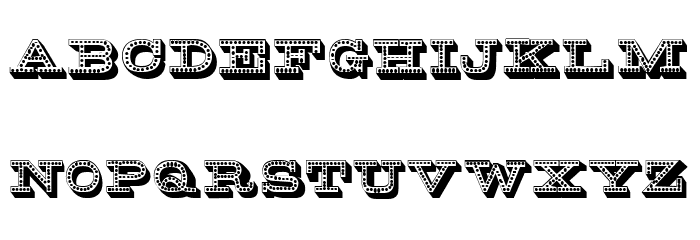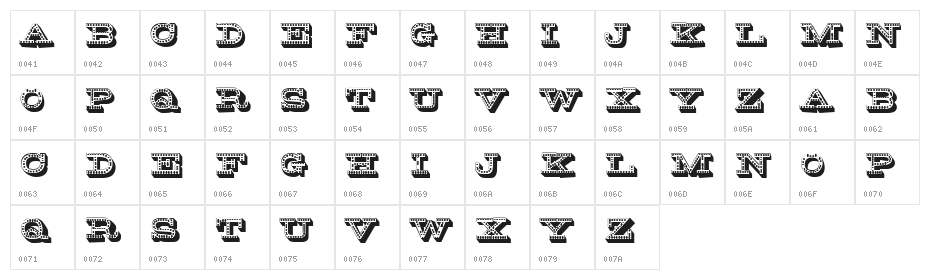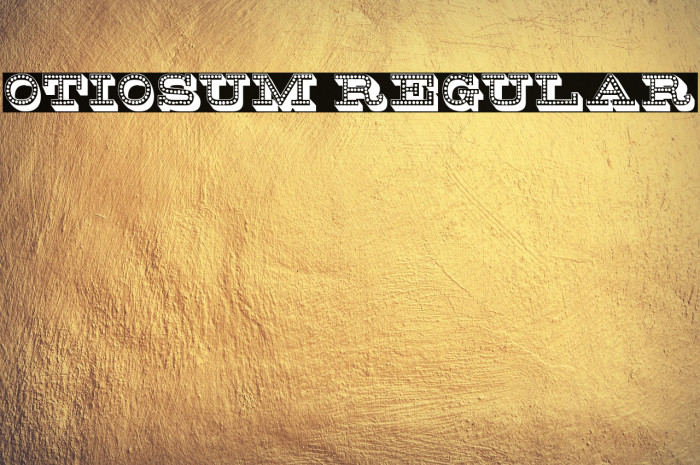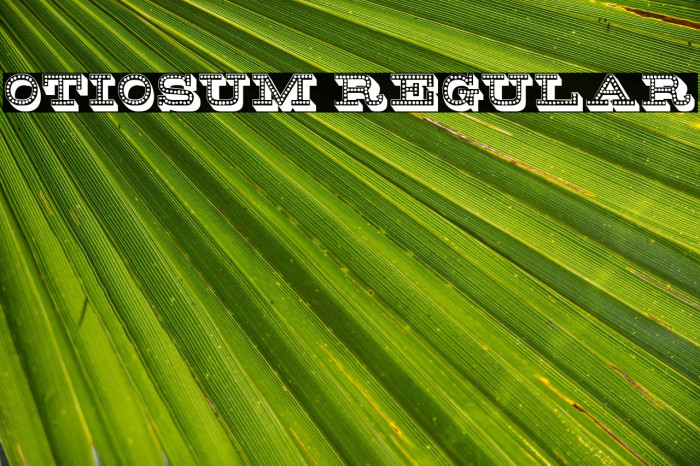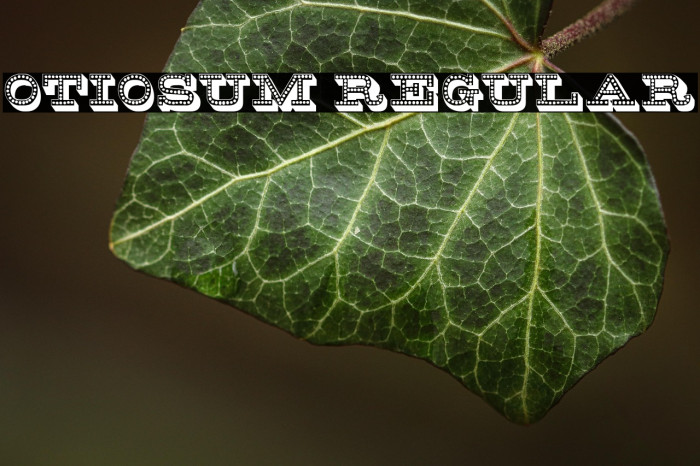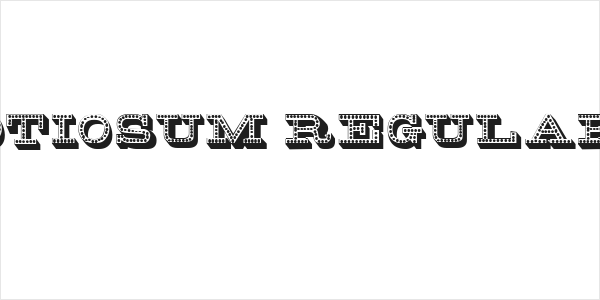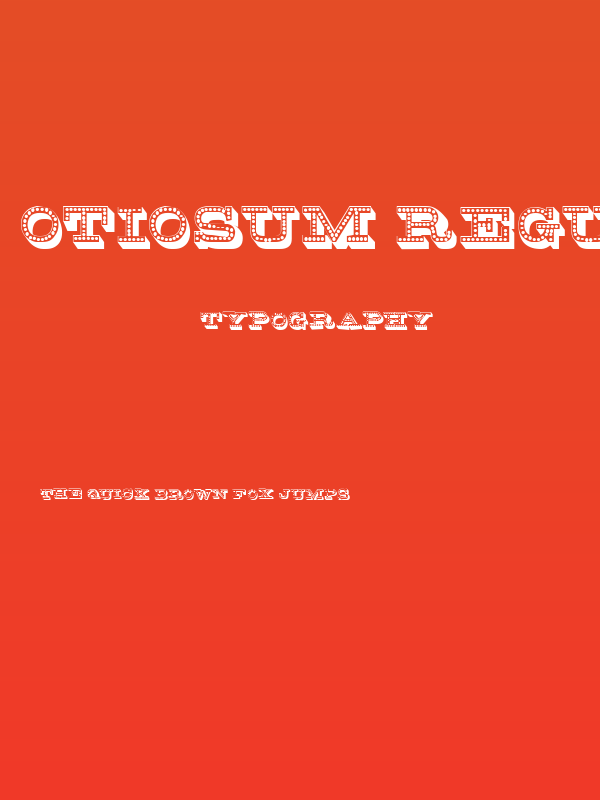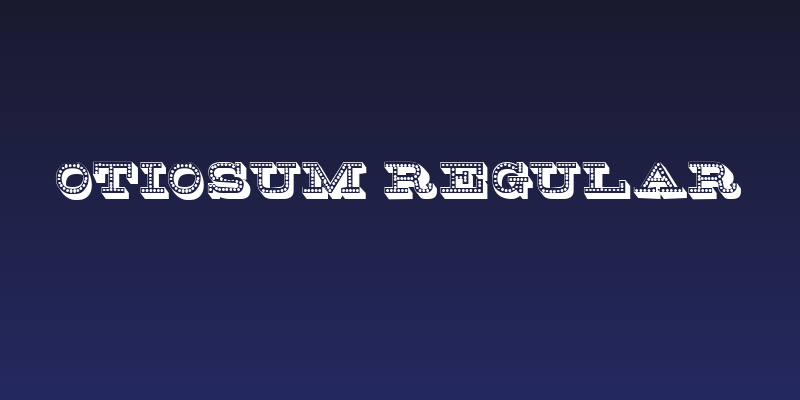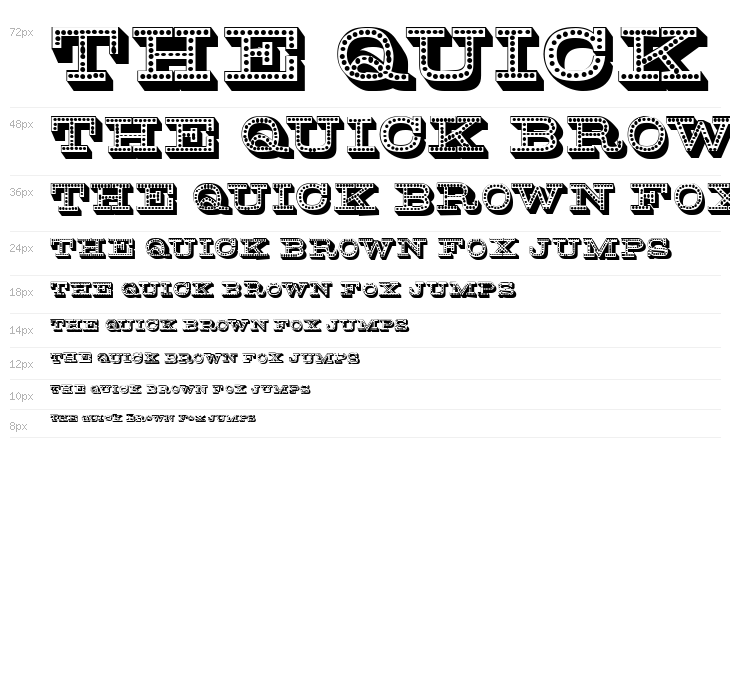
Otiosum Regular Font
Otiosum Regular Description
This font features a bold and decorative style with a unique dotted pattern inside each letter, giving it a playful and eye-catching appearance. The characters are uppercase and have a strong, structured form with a slight 3D effect created by the shadowing. The dotted pattern adds a vintage, marquee-like feel, reminiscent of old theater signs or circus posters. The overall design is both bold and intricate, making it suitable for projects that require a standout display font. Its distinctive style is perfect for capturing attention and adding a touch of nostalgia.
| Proposed Projects | Ideal for posters, signage, event invitations, and branding that requires a vintage or theatrical flair. |